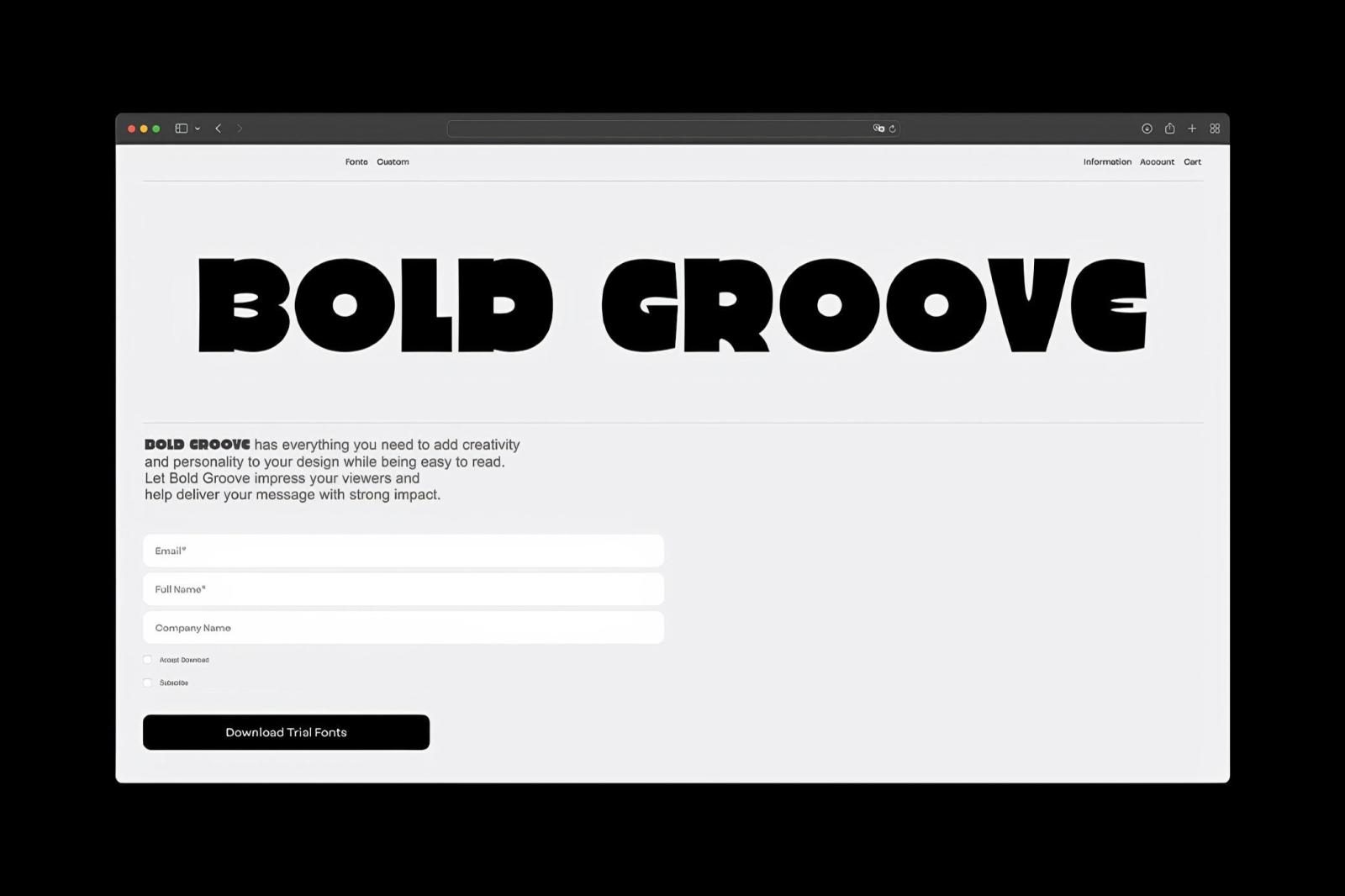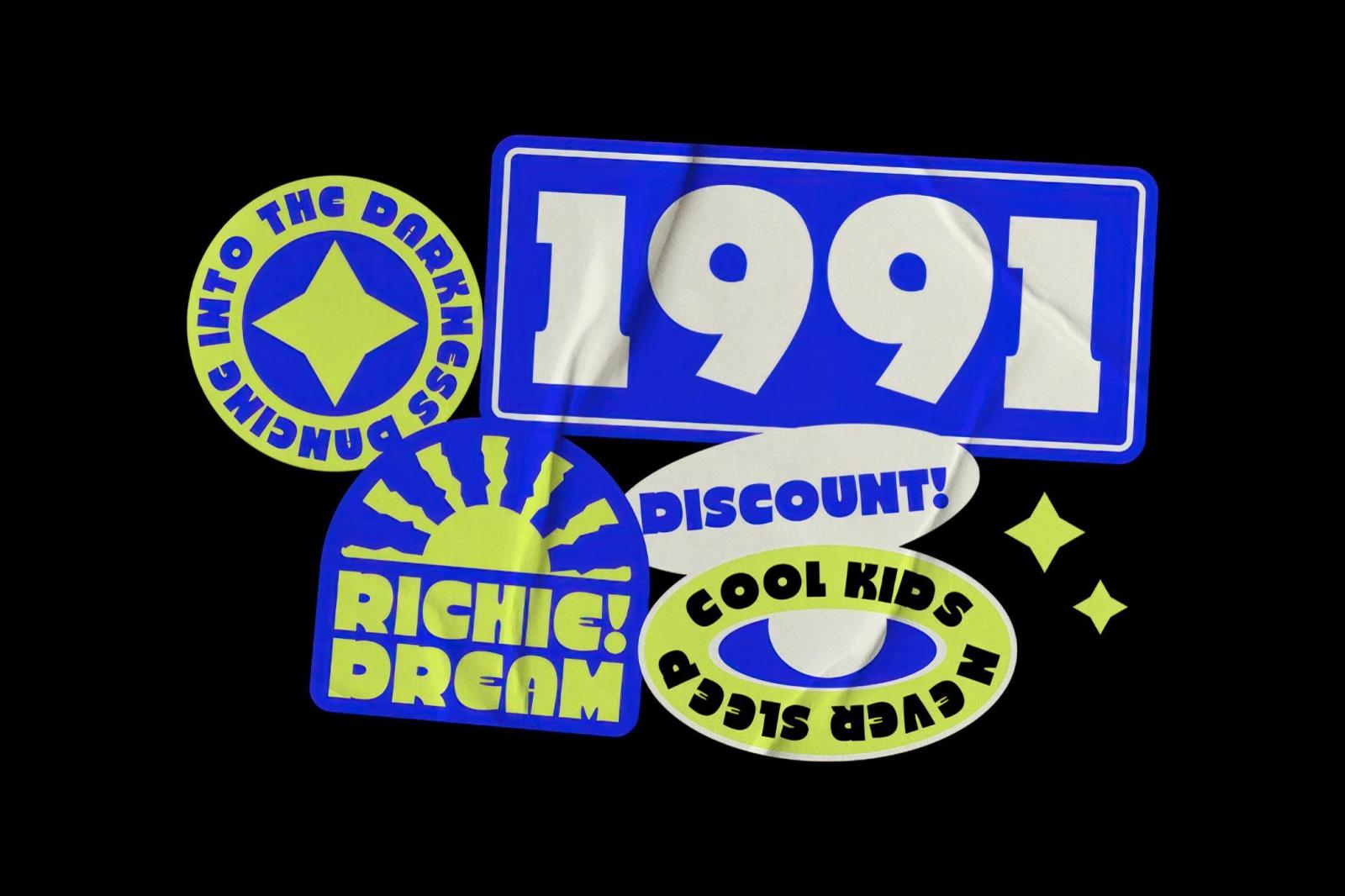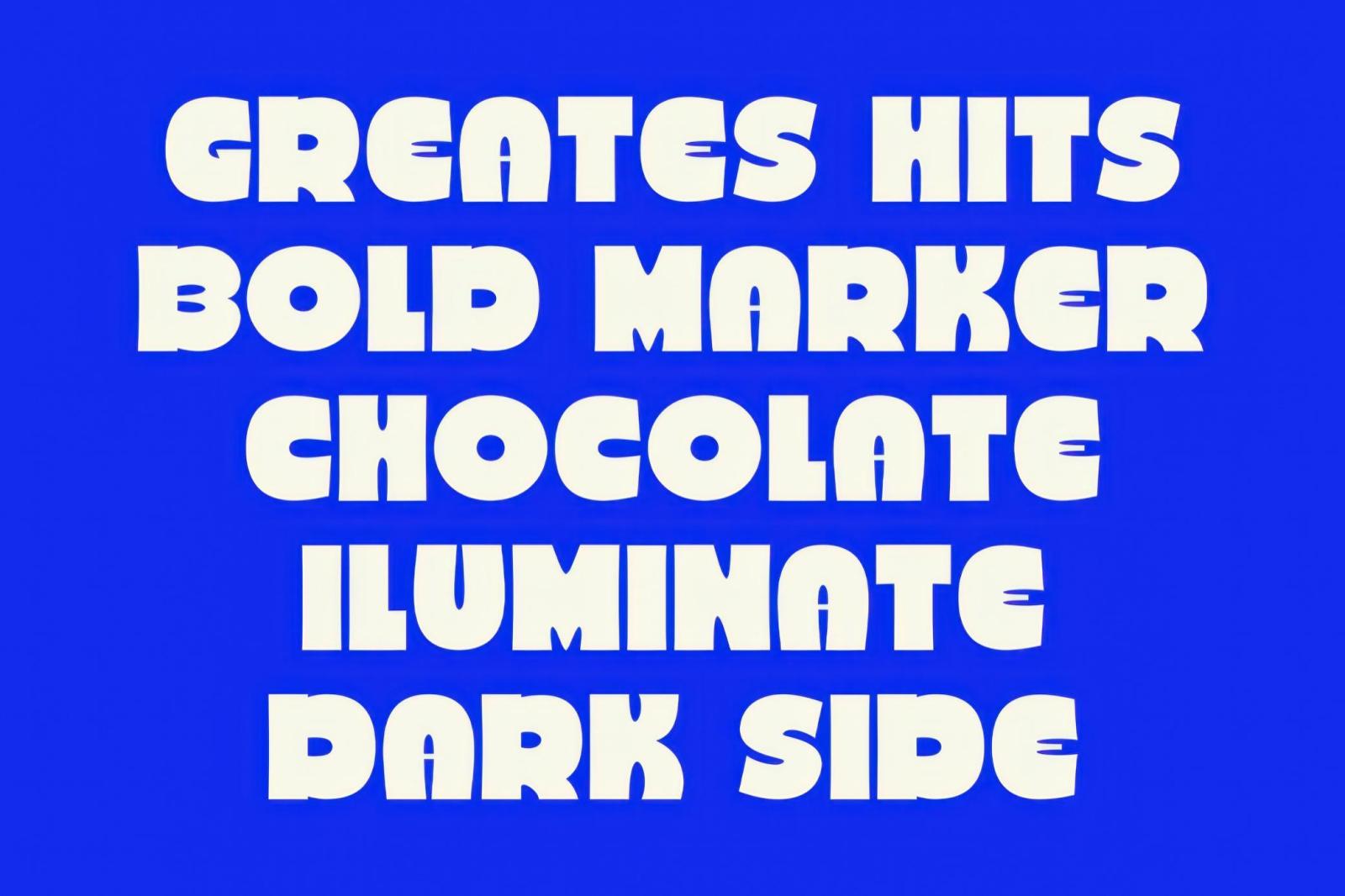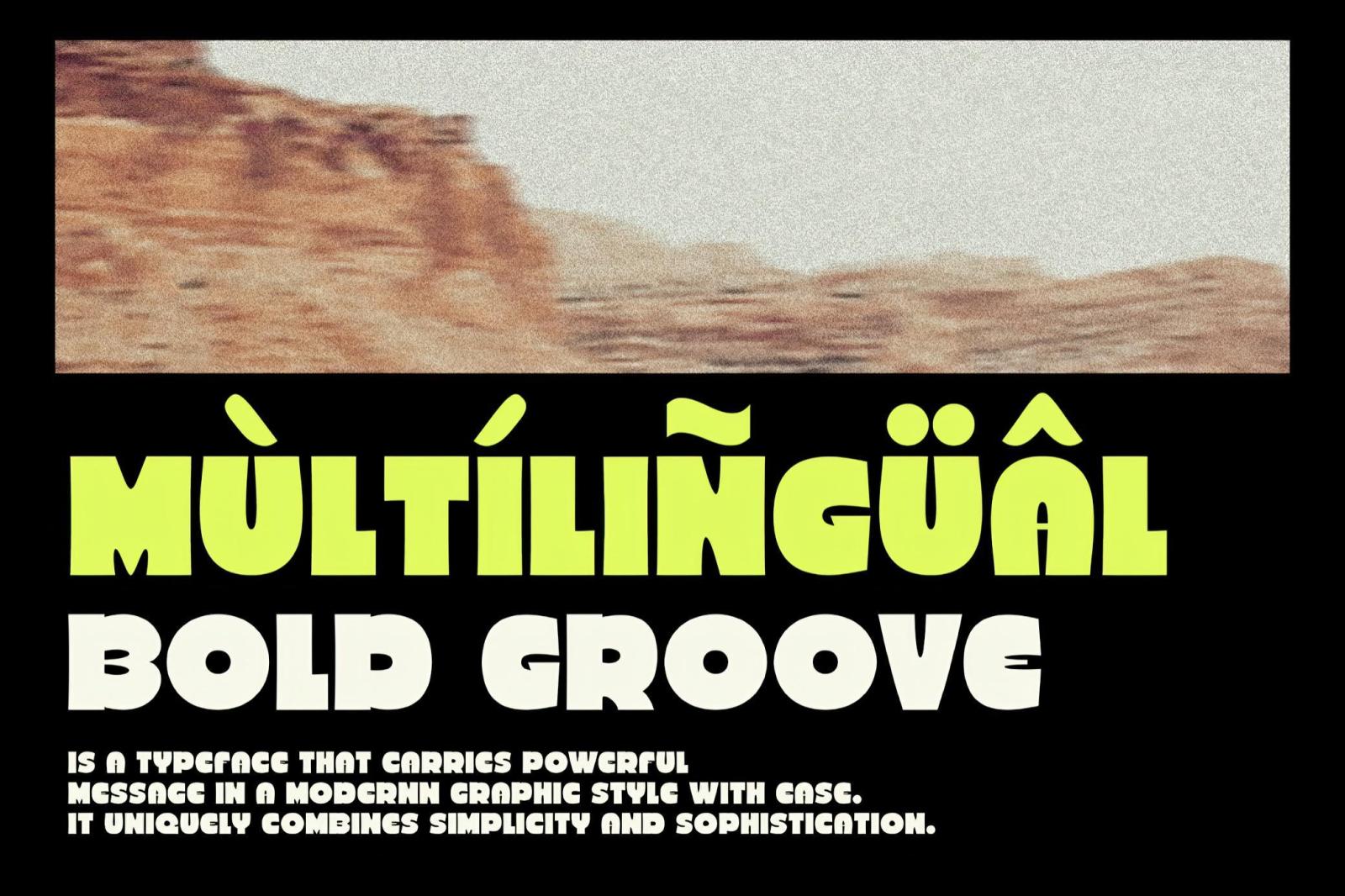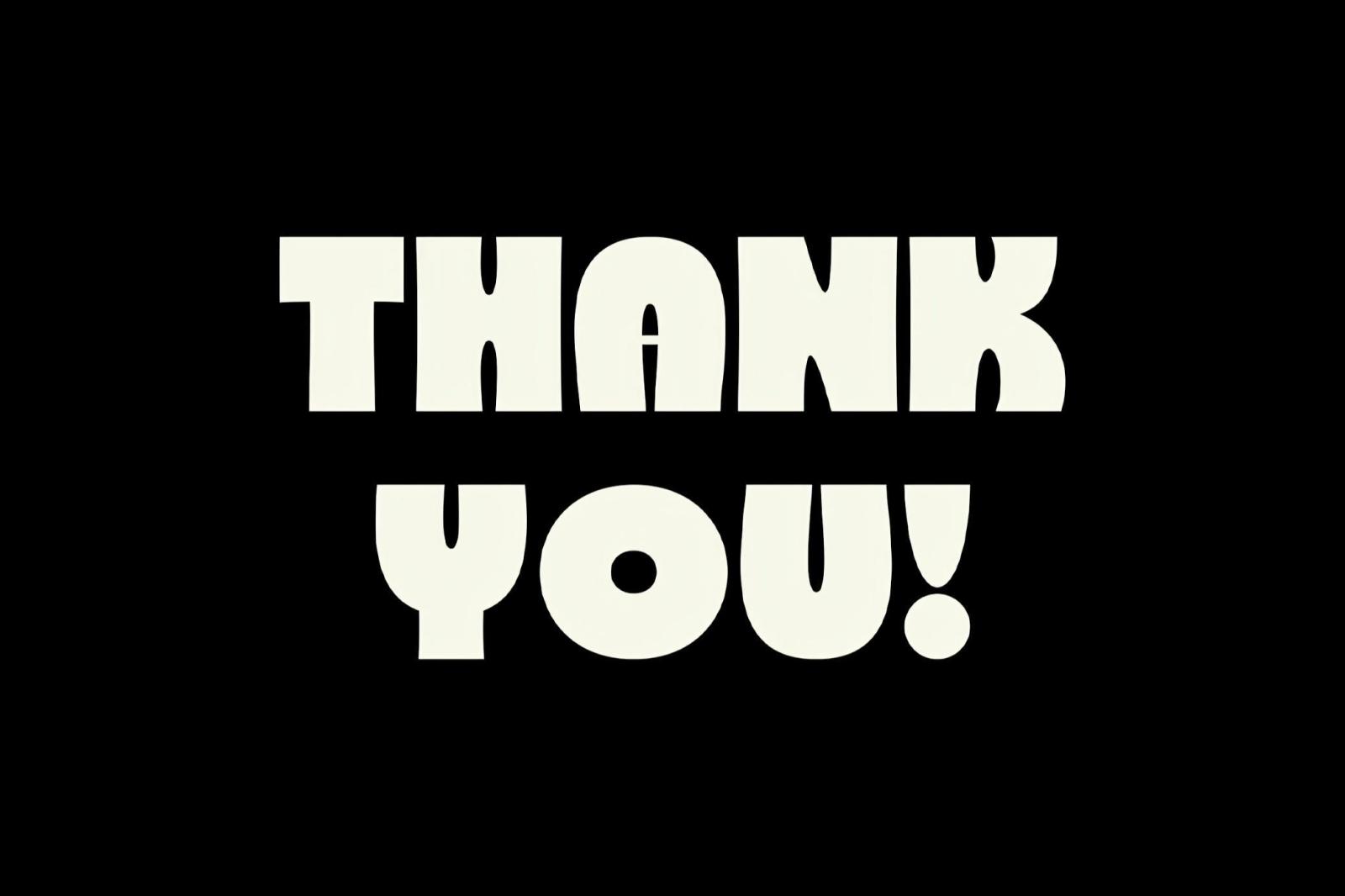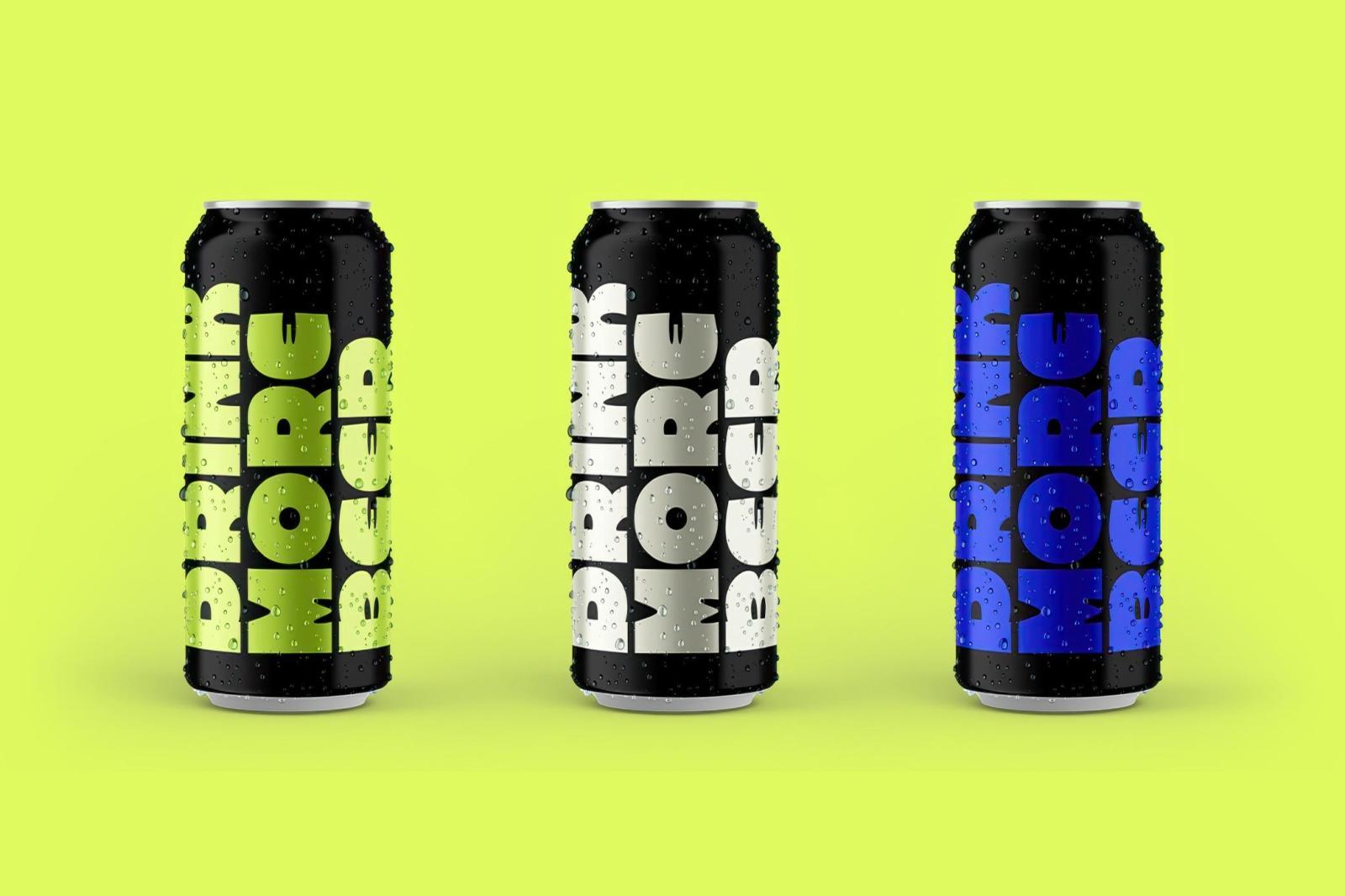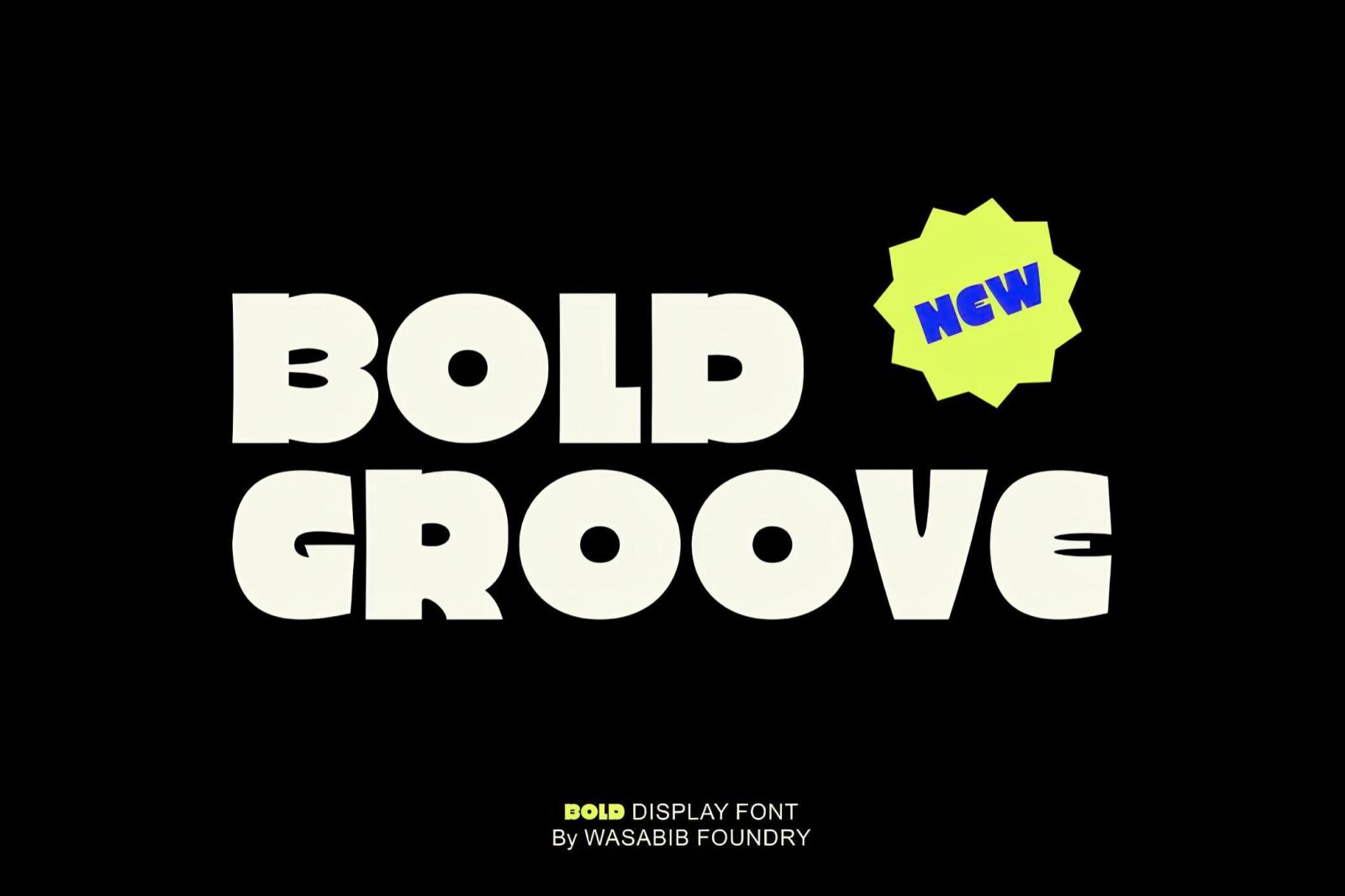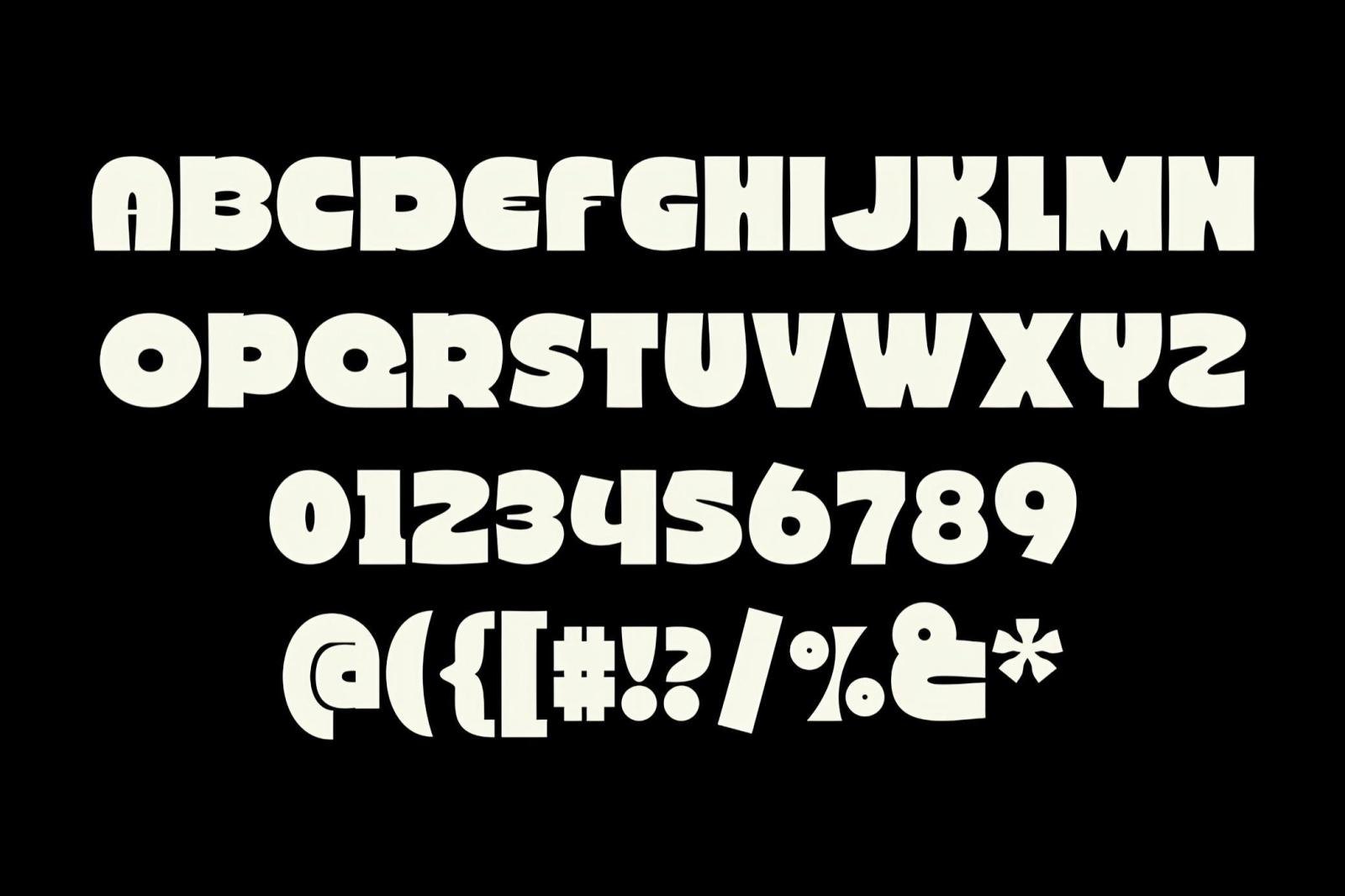
WTF Bold Groove — Display Font
Imagine turning down some back alley, only to be greeted by this massive, hulking figure that looks like it could crush you in a heartbeat… but instead? It opens its arms for a hug and tells you to have the best day ever. That’s the vibe of the font.
It’s bold, a little intimidating at first glance, but oddly friendly and just here to spread some good vibes with a whole lot of personality. This all-caps cutie comes packed with numbers, punctuation, and a no-nonsense attitude, plus multilingual support to spread its message loud and clear worldwide. Perfect for any project where “subtle” isn’t even in the vocabulary—logos, posters, branding that grabs you by the collar.